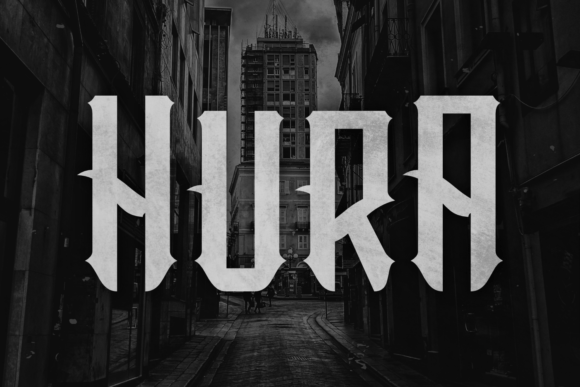
Introducing Hura Font, the ultimate blackletter font designed to elevate your logo typography game to new heights! Created by the talented team at Creative Fabrica Fonts, this font is a stylish and captivating addition to any font library.
With its sharp and pointy ending strokes, Hura Font boasts a unique and eye-catching look that will instantly grab the attention of your audience. Whether you're designing a logo for a brand, a website, or any other creative project, this font is the perfect choice to bring life and personality to your ideas.
Hura Font is not your ordinary blackletter font. It is a masterpiece that combines elegance with a touch of edginess, making it ideal for those looking to make a bold statement. Its intricate details and carefully crafted characters will leave a lasting impression on anyone who lays eyes on your designs.
Looking for a font that exudes professionalism and sophistication? Look no further than Hura Font. Its sleek and refined aesthetic is perfect for creating a sense of prestige and exclusivity in your logo designs. Whether you're working on a high-end fashion brand, a luxury hotel, or a premium restaurant, this font will effortlessly convey the essence of elegance and class.
But Hura Font is not just about looks. It is also highly versatile and adaptable to various design styles. It can seamlessly blend with both modern and vintage themes, allowing you to explore endless possibilities for your creative projects. From sleek and minimalist designs to ornate and intricate ones, this font can do it all.
In addition to its captivating appearance and versatility, Hura Font is also optimized for SEO, ensuring that your website ranks higher in search engine results. By incorporating this font into your logo typography, you not only enhance the visual appeal of your designs but also improve your online visibility, attracting more potential customers to your brand.